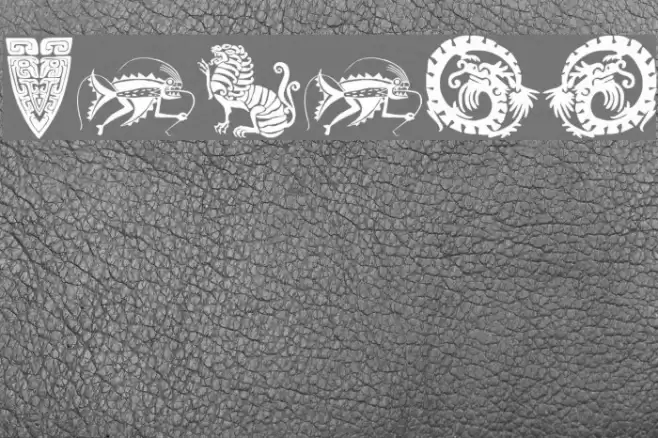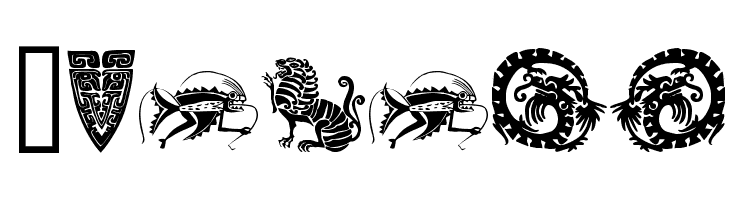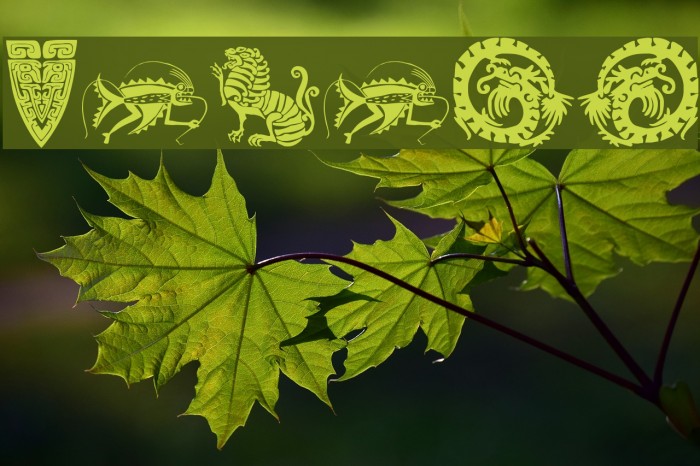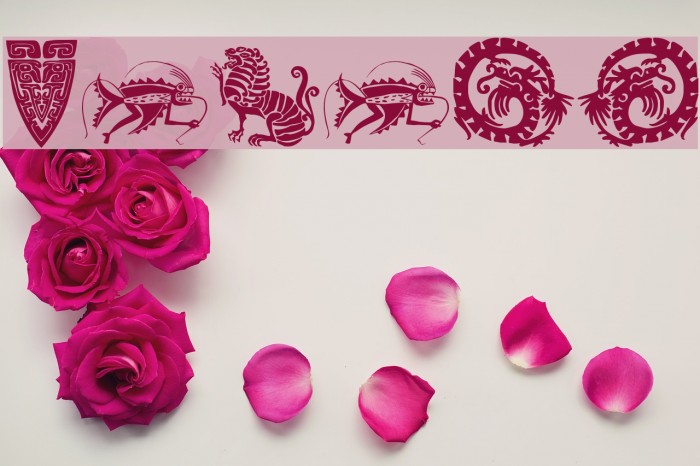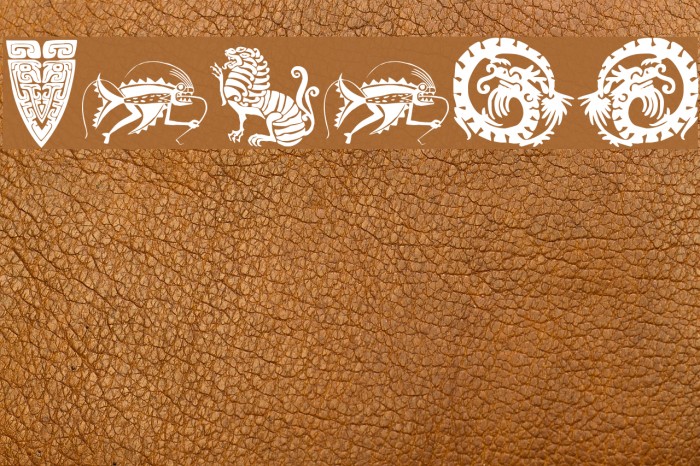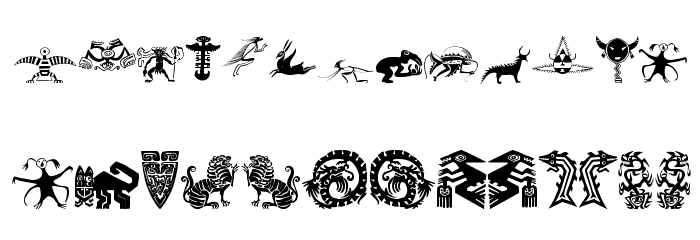
Spirits Font
Spirits Description
This collection features a series of intricate, tribal-inspired glyphs and symbols, each representing a unique spirit or creature. The designs are highly detailed, with a strong emphasis on bold lines and symmetrical patterns. The imagery includes a variety of animals and mythical figures, each rendered in a style reminiscent of ancient indigenous art. The overall aesthetic is both mysterious and captivating, making it ideal for projects that require a touch of the exotic or the mystical. The characters are not traditional letters but rather decorative symbols that can be used to add a unique visual element to designs.
Intricate tribal-inspired glyphs representing spirits and creatures from Dingbats fonts.